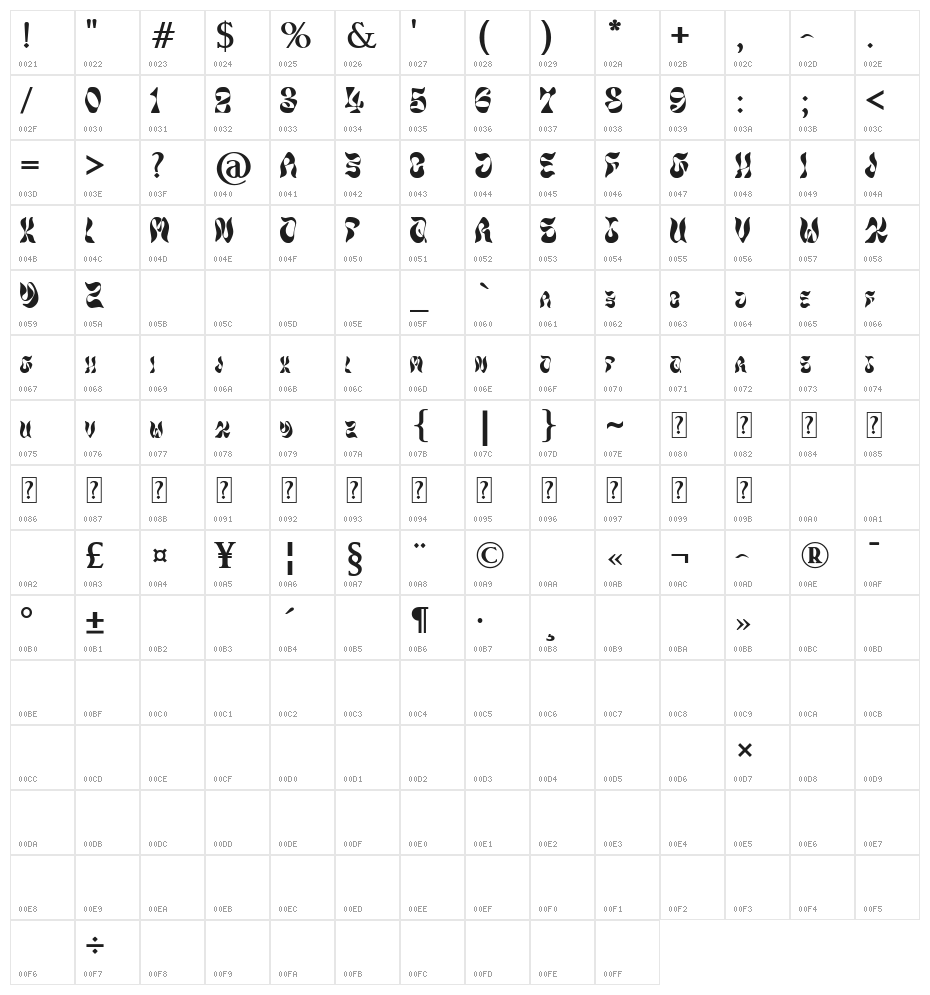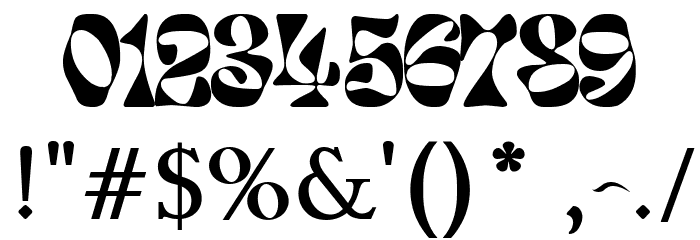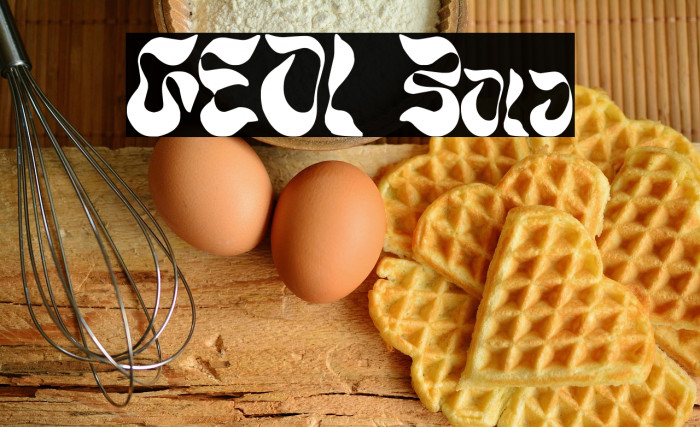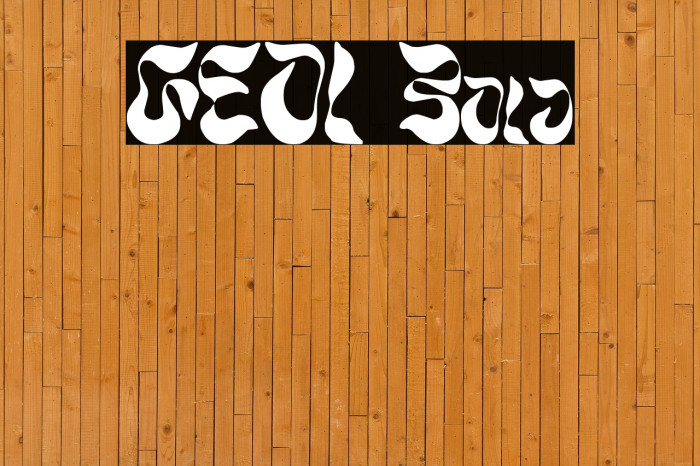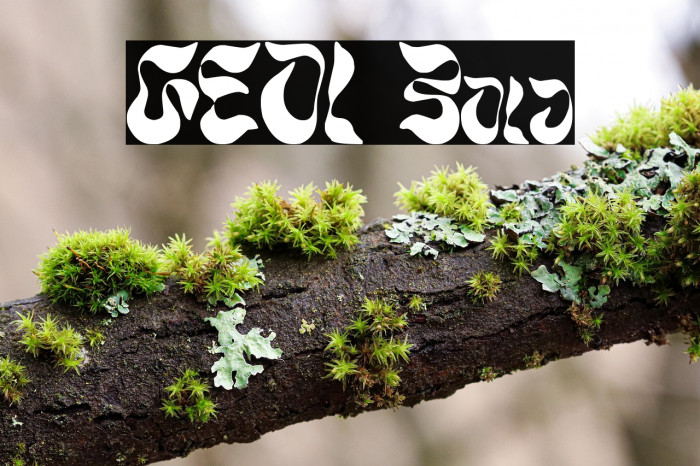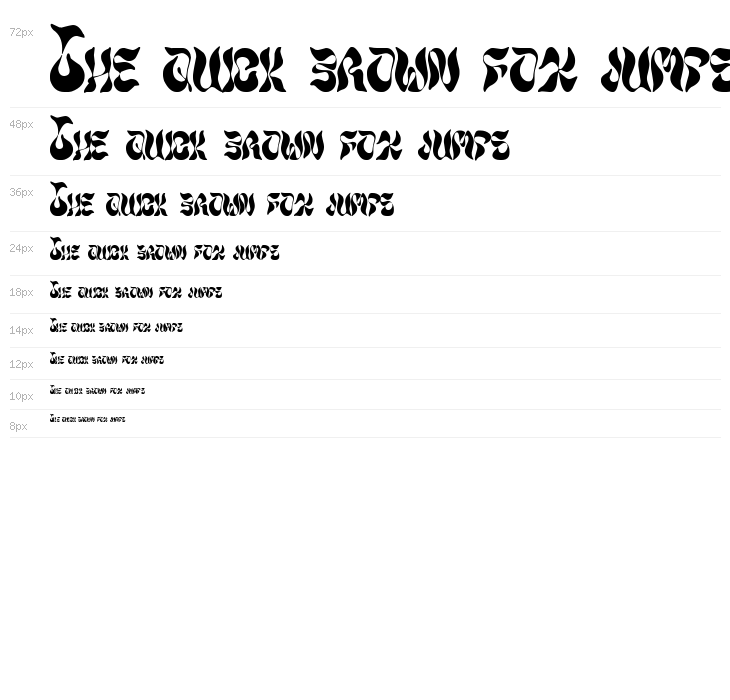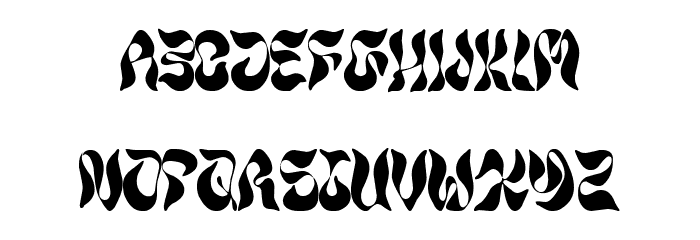
GEOL Bold Font
GEOL Bold Description
This font features a bold and dynamic design with a unique, abstract style. The characters are crafted with a sense of movement and fluidity, creating a visually striking appearance. The bold strokes and artistic curves give it a distinctive look, making it stand out in any design. The uppercase and lowercase letters maintain a consistent style, with numbers and special characters following the same artistic theme. This font is perfect for projects that require a strong visual impact and a creative touch.
| Proposed Projects | Ideal for posters, album covers, branding, and any creative projects that require a bold statement. |